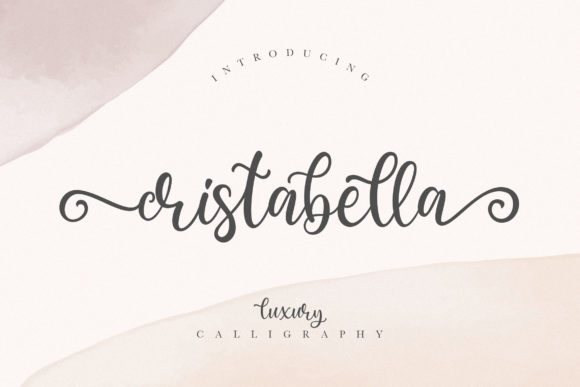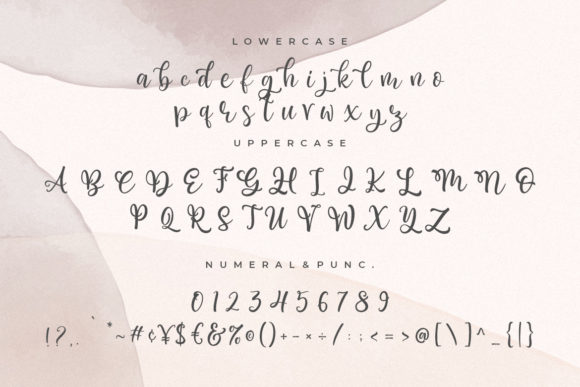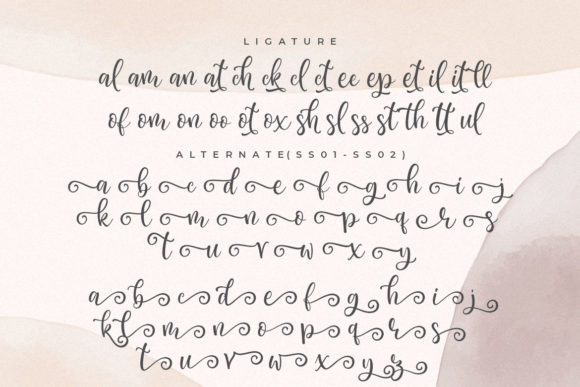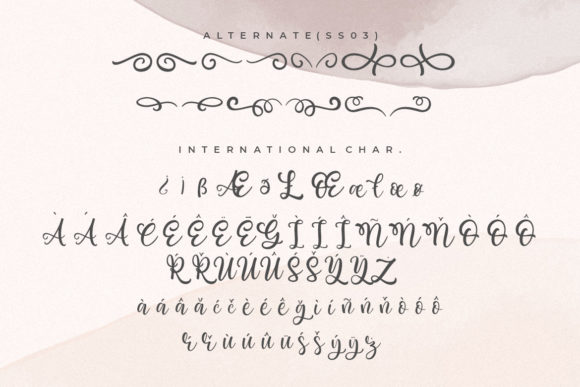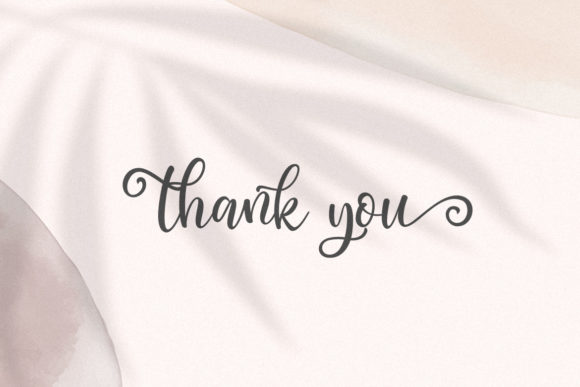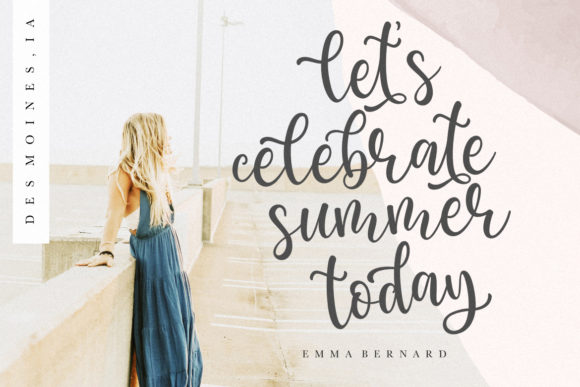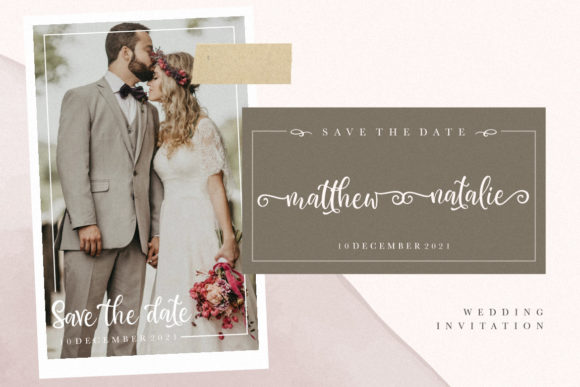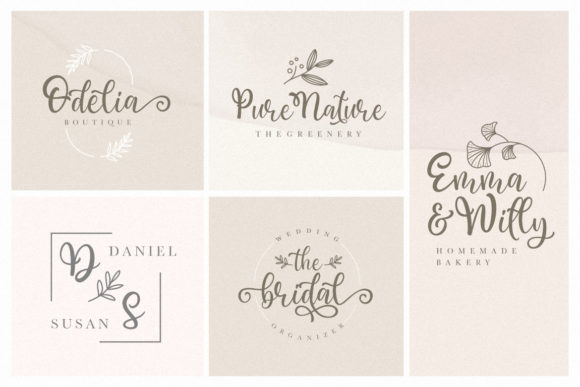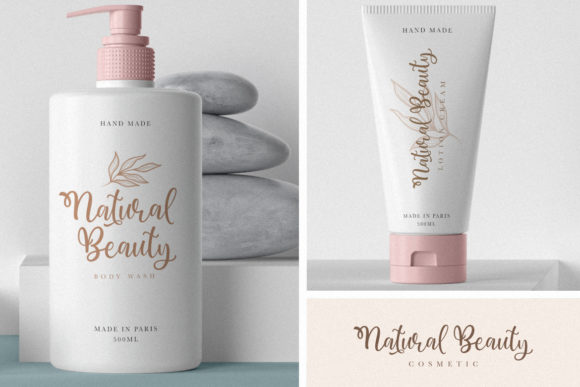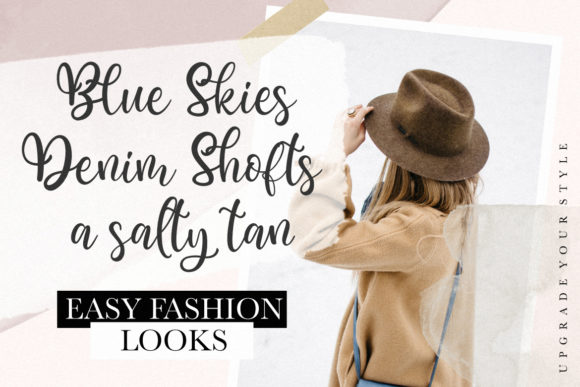
Cristabella Font
About Cristabella Font
Introducing “Cristabella,” a magical handwritten font that captures the essence of elegance and creativity. This font is meticulously crafted to bring a touch of enchantment to your designs, making it a perfect choice for various creative projects.
With its graceful and flowing letterforms, “Cristabella” adds a touch of elegance and sophistication to any design. Whether you’re looking for fonts for Instagram posts, calligraphy scripts for DIY projects, or any other creative endeavor, this font will elevate your ideas and transform them into true works of art.
One of the key features of “Cristabella” is its versatility. It can be used for a wide range of purposes, from social media graphics and branding materials to wedding invitations, greeting cards, and more. Its magical and whimsical style makes it perfect for projects that require a touch of fantasy and wonder.
The PUA encoding of “Cristabella” allows for easy access to all the glyphs and swashes. This means you can easily customize and enhance your designs with a wide range of decorative elements and alternative characters. The additional glyphs and swashes add a level of creativity and uniqueness to your typography, allowing you to create truly personalized and captivating designs.
Whether you’re creating invitations, posters, logos, or any other visual content, “Cristabella” will bring a sense of magic and beauty to your work. Its elegant and handcrafted appearance adds a personal touch, making your designs stand out and leaving a lasting impression on your audience.
In summary, “Cristabella” is a magical handwritten font that combines elegance with creativity. It is suitable for a variety of projects, from social media graphics to wedding invitations and beyond. With its PUA encoding, you have easy access to a wide range of glyphs and swashes, allowing you to add decorative elements and personalize your designs. Embrace the enchanting nature of “Cristabella” and watch your creative ideas come to life with a touch of magic.